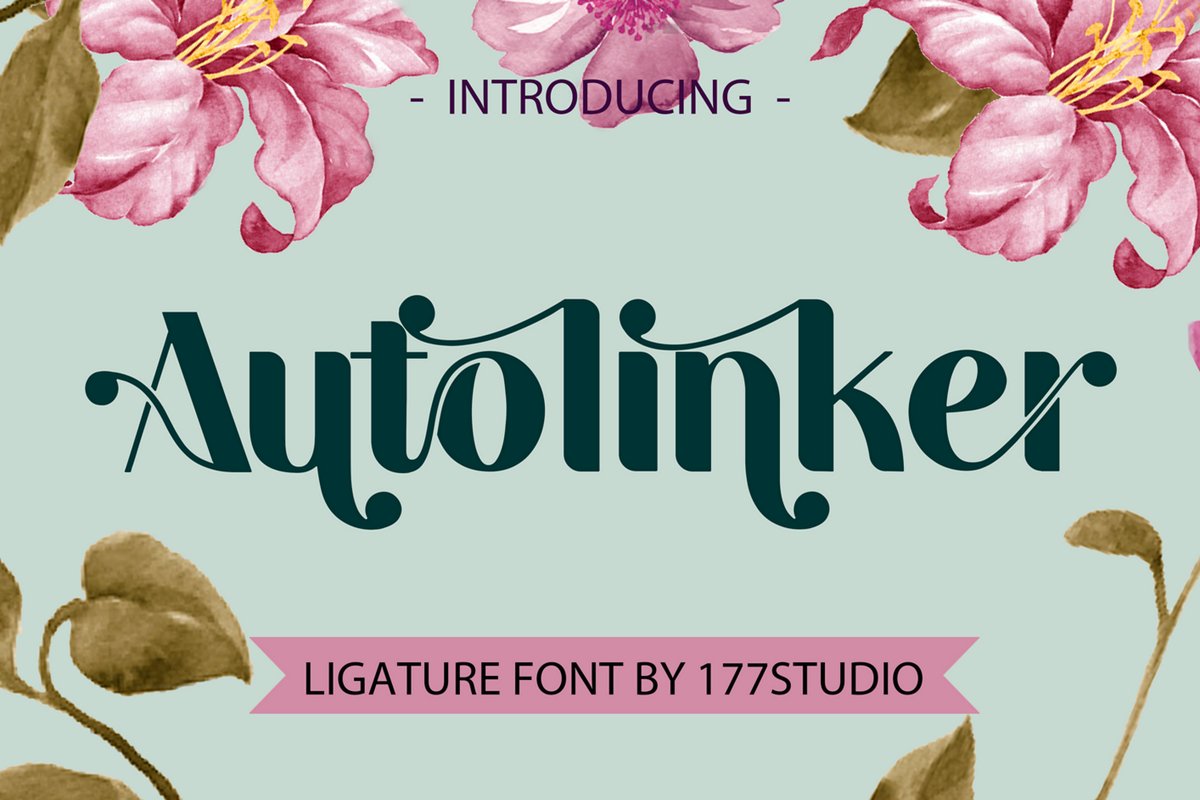
Autolinker – Fancy Ligature Font is a well-balanced contemporary font with beautiful ligatures. It is a display font with moderate contrast that perfect for branding projects, logo, wedding designs, social media posts, advertisements, product packaging, product designs, label, photography, watermark, invitation, stationery, and any projects, it makes with a high level of legibility.
To make it look more unique, here we prepared some ligatures:
ab ae ah am an ai aj ar ao ap at cb ch cm cn ci cj cp co cr db de dh dm dn di dj do dp dr eb eh em en ei ej eo ep er oo tb th tm tn ti tj to tp tr ub uh um un ui uj uo up ur fl fi ff fj gi gj ri rj
Include Fancy Style on Every Uppercase and Some LowercaseAutolinker is also included full set of:- Uppercase and Lowercase letters
- Special Ligatures
- Stylistic Alternates
- Numerals & Punctuation
- Accented characters